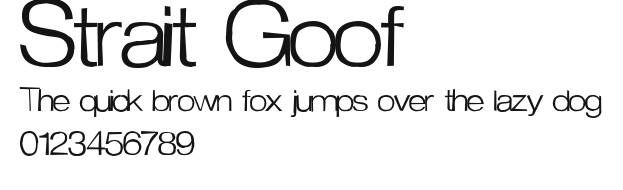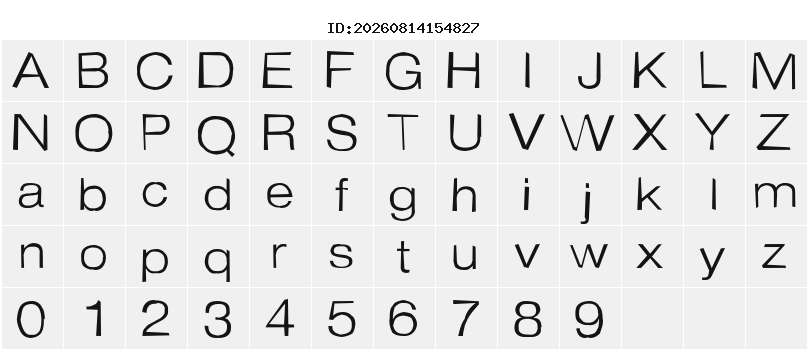
Strait Goof Preview
• Font Name: Strait Goof
• Full Font Name: Strait Goof
About Strait Goof.ttf
Strait Goof.ttf is a modern, elegant sans-serif font designed for ultimate readability and visual harmony. Perfect for branding, headlines, web design, and print materials.